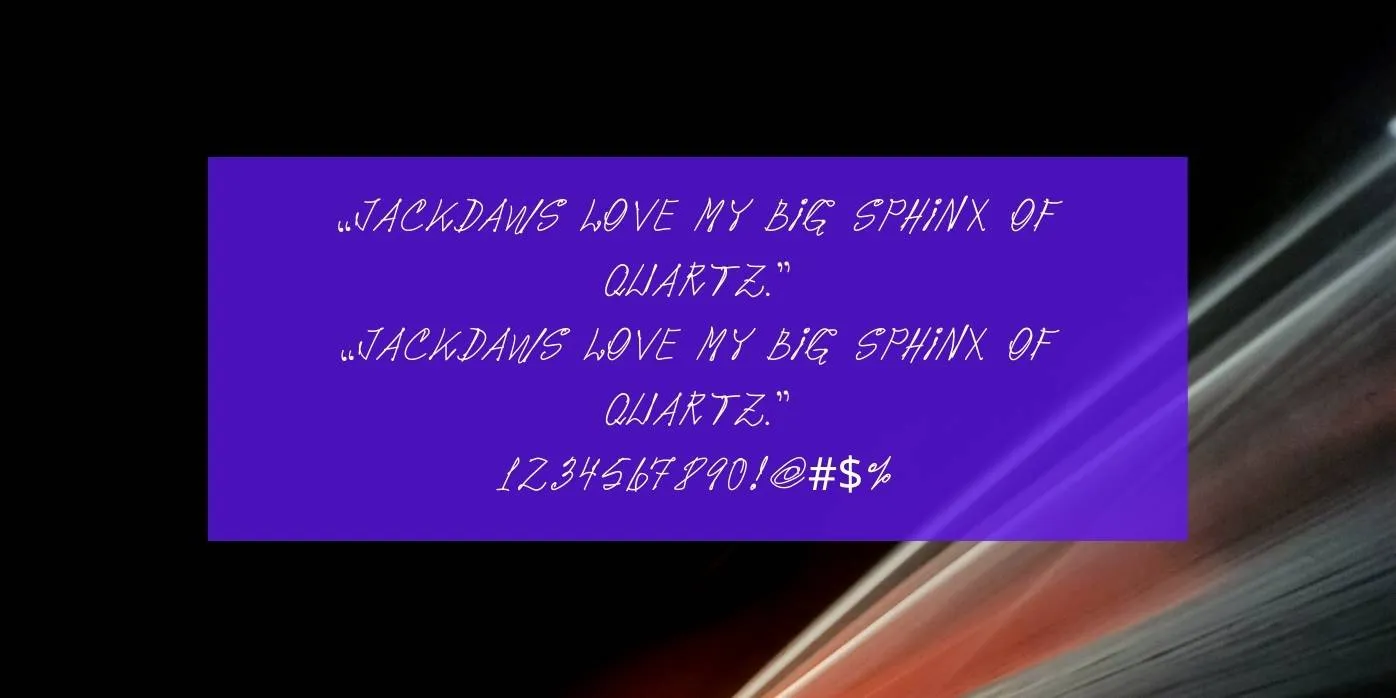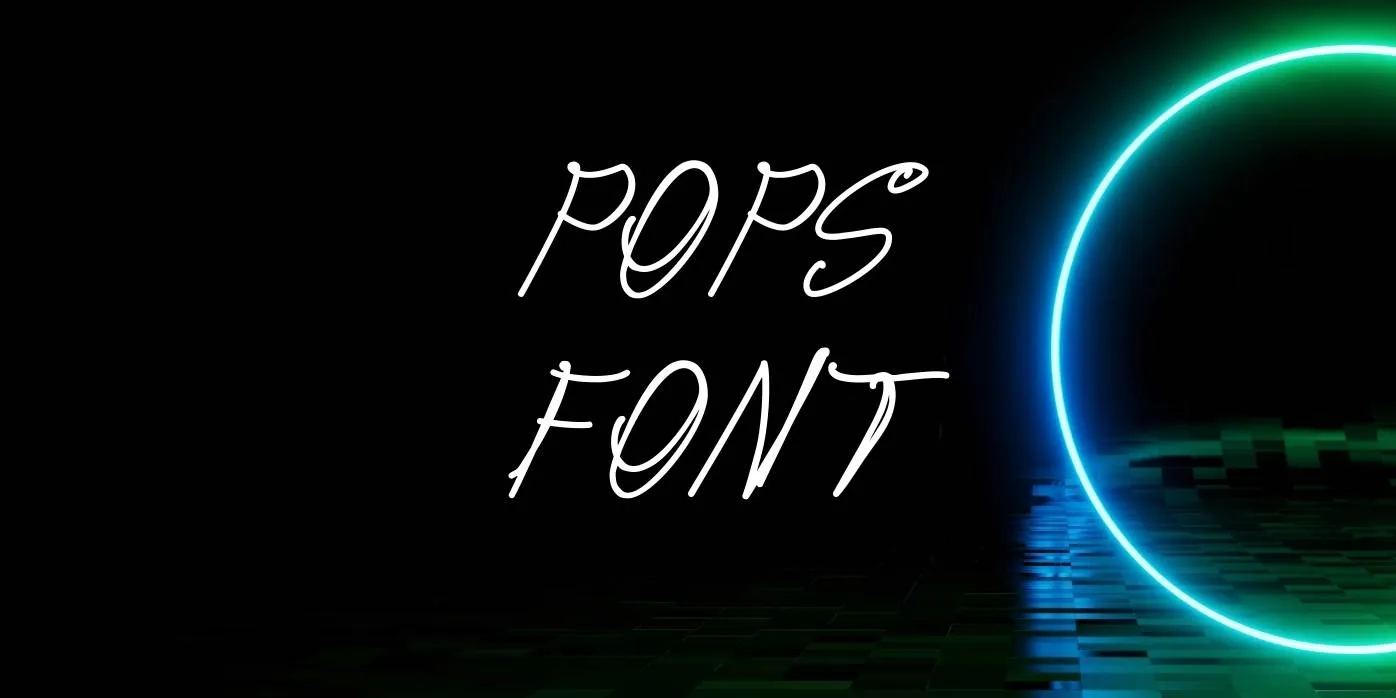
Pops Font
In this post, we present a very stylish typeface that is known by the name Pops Font. It was designed by Smatras. This typeface belongs to the Handwritten family. The main aim of creating this font was to give a stylish and unique touch to the world of typography.
This font is available in two styles namely Regular and Outline. Both these styles have their own unique charm and can be used for various purposes. You can use amazon bt font which has the same style and characters like this one. The regular style is ideal for headlines, while the outline style is perfect for body text.
Pops Font contains a total of 64 characters including uppercase, lowercase, punctuation marks, and symbols. This font supports multiple languages and can be easily installed on your computer. You can also utilize its generator tool for various designs.